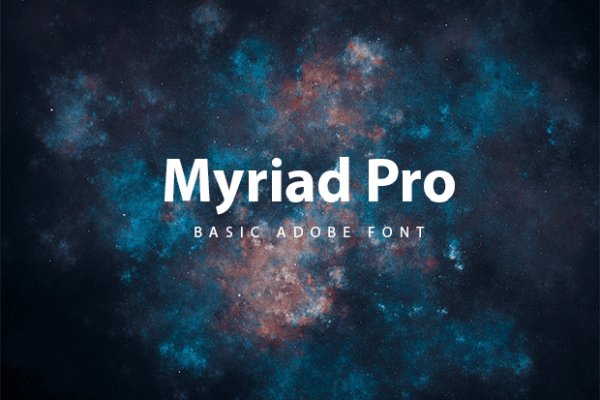
Myriad Pro Font
Myriad Pro Font is popular for its Bold and italic function. This is the part of the CSS family, and it is available in the zip file type. It allows the residence domestic home windows cleartype text rendering system, which wants to decorate text clarity on liquid crystal show indicates. I expect you’re a developer or font fashion designer, consequently, you come back to our net web page for getting that typeface.
Effective patterns, tremendous finishing contact like varsity font, and super contemporary designs make nowadays. Download This loose net font is a sans serif with a low distinction and a tall x-pinnacle, talents that translate nicely onto the show. Its massive individual set includes small caps, pictograms, and arrows. Similar to akrobat font, it offers an easy and nowadays seems for your internet page or weblog.
Which you could format the appropriate posters, logos, books covers, labelings, watermarks via video enhancing.